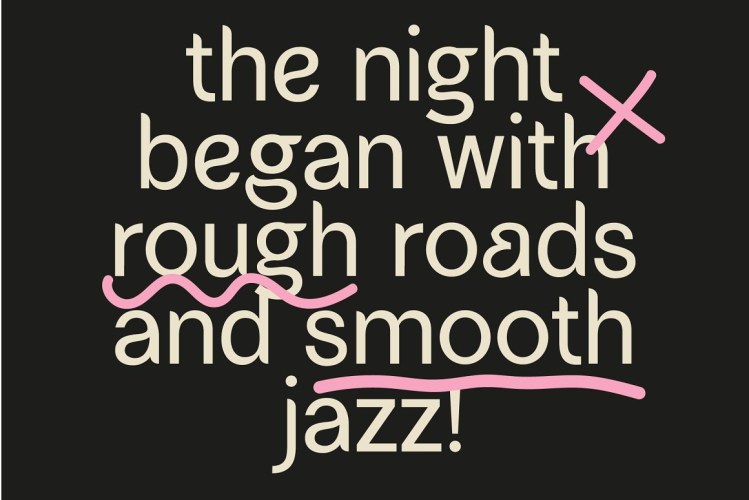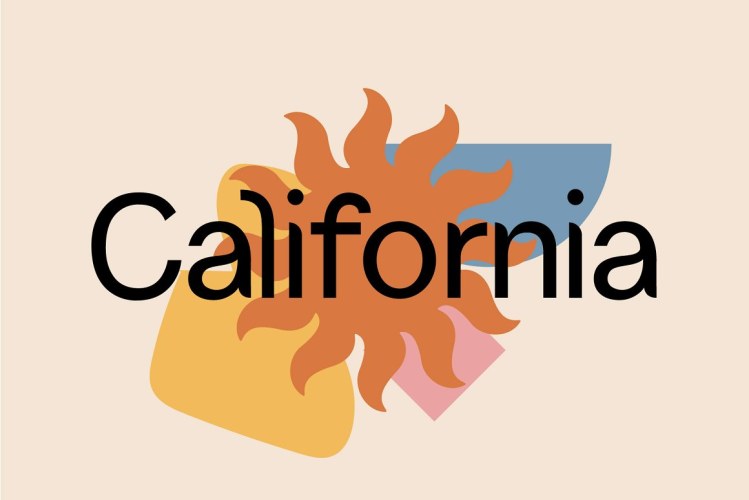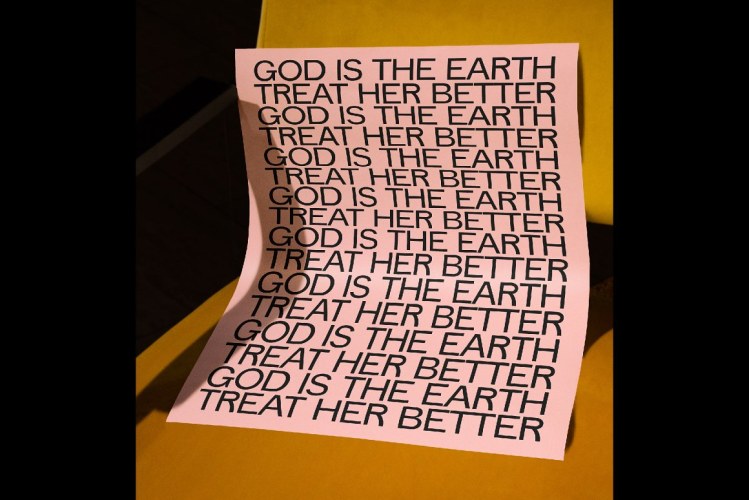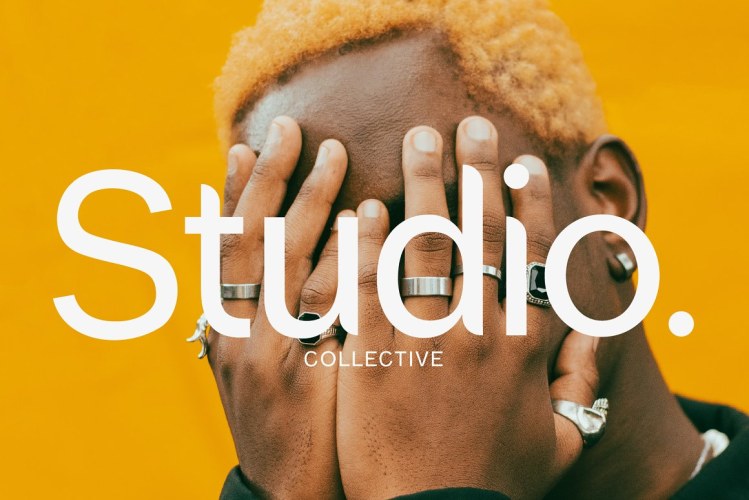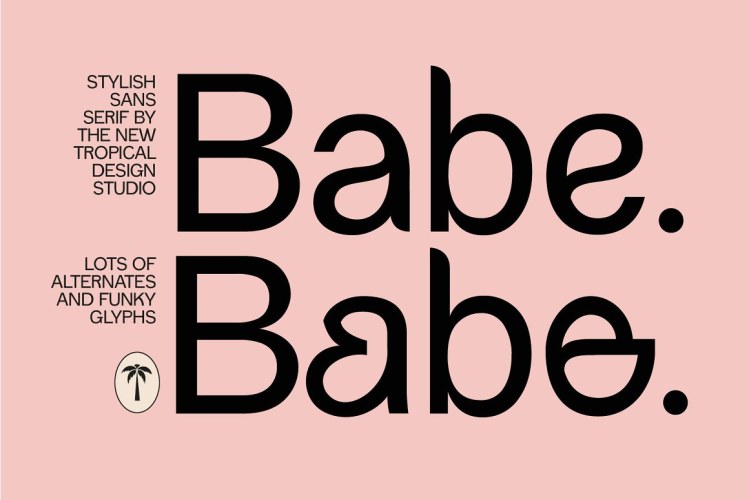
Babe – Sans Serif Font
She’s cute, she’s bold, she has curves in all the right places. It’s Babe Sans. She’s clean, legible, modern like a classic san but these glyphs have style! Groovy curve…
She’s cute, she’s bold, she has curves in all the right places. It’s Babe Sans. She’s clean, legible, modern like a classic san but these glyphs have style! Groovy curves and funky alternates make for a unique and memorable font.
Where Babe – Sans Serif Font works best
Babe – Sans Serif Font stays legible at small sizes, which makes it a strong choice for navigation, buttons and dashboards in web design and app interfaces.
Clean sans serifs like Babe – Sans Serif Font are the default language of SaaS, fintech and product branding.
What is Babe – Sans Serif Font good for?
Babe – Sans Serif Font is a Sans Serif Fonts typeface tagged Bold, Classic, Clean, Modern. It works well for headlines, logos, posters, social media graphics and branding projects that need a distinctive sans serif fonts look.